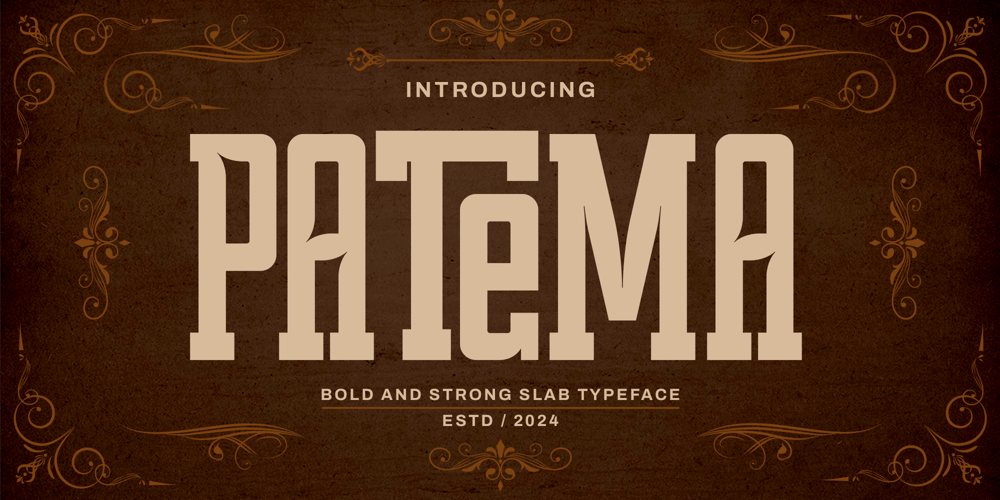
Patema Font Family was designed by Musthafa Kamal Emje and published by Afkari Studio. Patema contains 1 styles and family package options. Introducing Patema – Slab Serif Condensed Font, a bold yet elegant typeface meticulously designed to combine the strength of slab serif with the sleekness of condensed letterforms. Patema is crafted to elevate your designs with a refined, timeless aesthetic, perfect for projects that demand both impact and sophistication.At its core, Patema embodies the essence of classic typography with a modern twist. Its sturdy serifs and condensed proportions make it a versatile choice for various graphic applications, from striking headlines to clean and minimal branding, ensuring its adaptability across digital and print platforms.Highlighted Features: Complete set of uppercase and lowercase letters, numerals, and punctuation marks Unique alternates and ligatures for added design flexibility Compatible with both PC and Mac platforms Easy installation process Seamless integration with Adobe Illustrator, Adobe Photoshop, Adobe InDesign, and Microsoft Word No extra design software required for full accessibility Multilingual support, including characters like ä, ö, ü, Ä, Ö, Ü, ß, ¿, and ¡ Patema goes beyond being just a font; it’s a versatile design tool that adds a touch of sophistication to a wide range of creative projects. Whether you’re working on editorial designs, logos, packaging, posters, magazine layouts, web designs, or apparel branding, Patema delivers a commanding yet elegant look.The font’s condensed style allows for maximum impact even in tight spaces, while its sturdy serifs bring a sense of professionalism and authority. Patema’s unique combination of boldness and refinement makes it ideal for both traditional and contemporary design environments.In conclusion, Patema Slab Serif Condensed Font is not just another font; it’s a design statement, blending strength with elegance to give your projects a distinguished edge. Embrace its versatility, explore its potential, and let Patema be the cornerstone of your next creative masterpiece. Unlock the power of timeless typography with Patema, where every letter exudes class and confidence.